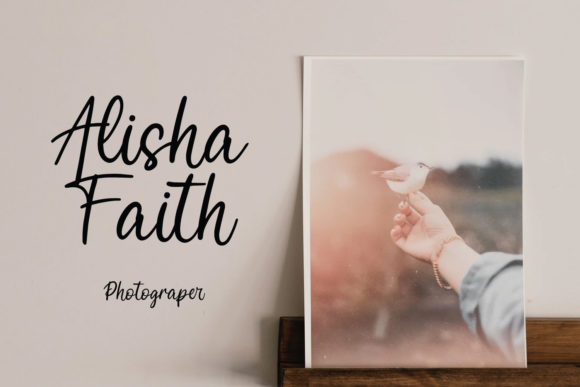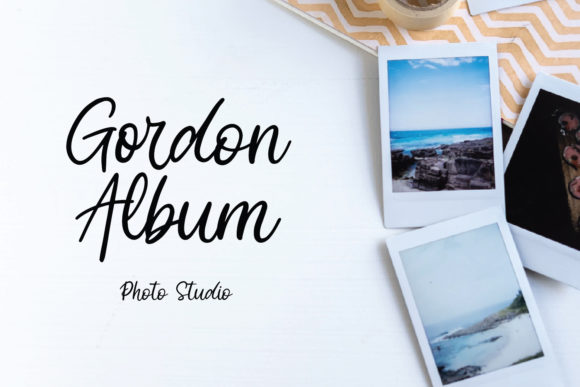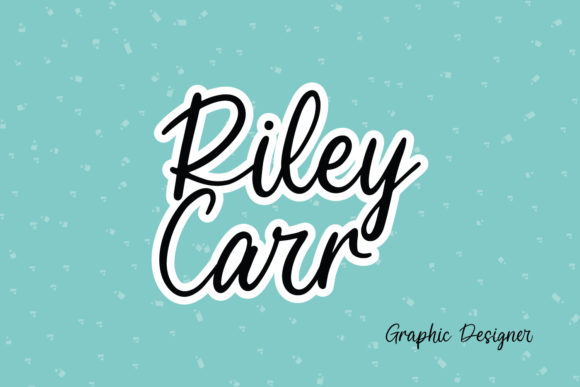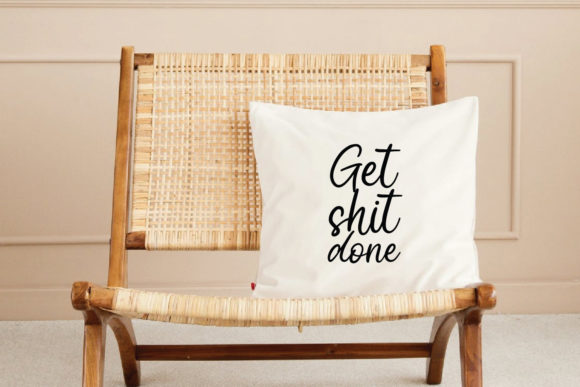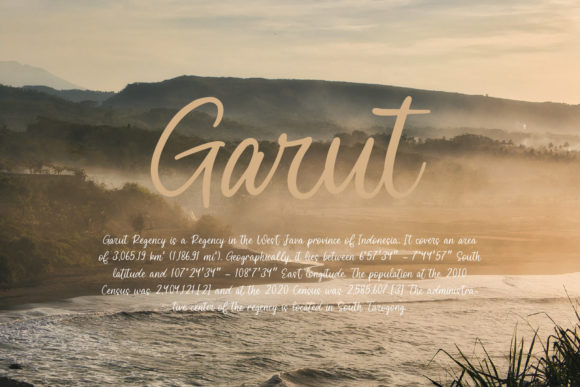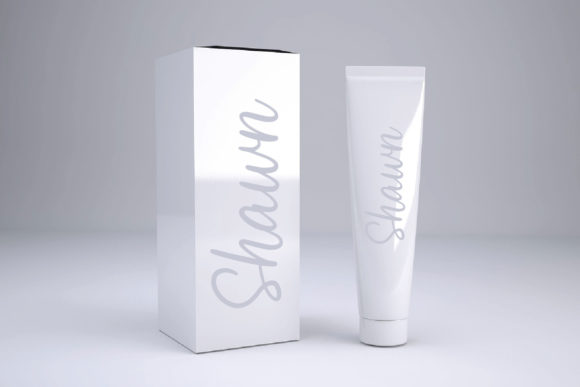
Introducing Balloon Hands Font: The Perfect Addition to Your Creative Projects
Are you a designer, crafter, or DIY enthusiast looking for a unique and playful font to add a personal touch to your projects? Look no further than Balloon Hands Font! This lovely script font features charming, whimsical characters that seem to dance along the baseline, making it the perfect addition to your most creative ideas.
The Characteristics of Balloon Hands Font
Balloon Hands Font is a script font that boasts a range of delightful features, including:
- Playful characters: Each letter in the Balloon Hands Font has a unique, hand-drawn feel that’s sure to bring a smile to your face. The characters seem to dance along the baseline, giving your text a lively, energetic feel.
- Charming connections: The font features beautiful connections between letters, creating a flowing, cursive effect that’s perfect for adding a touch of elegance to your projects.
- Variety of alternates: Balloon Hands Font comes with a range of alternate characters, allowing you to mix and match letters to create a truly unique look.
Why Use Balloon Hands Font?
- Add a personal touch: With Balloon Hands Font, you can add a personal touch to your projects that’s sure to make them stand out. Whether you’re creating invitations, greeting cards, or social media graphics, this font is the perfect way to add a bit of personality.
- Perfect for crafty projects: If you’re a crafter or DIY enthusiast, Balloon Hands Font is a great choice for your next project. Use it to create beautiful hand-lettered signs, decorate your journal pages, or add a touch of whimsy to your scrapbooking projects.
- Easily readable: Despite its playful feel, Balloon Hands Font is still easy to read, making it perfect for use in a variety of contexts, from body text to headings.
How to Use Balloon Hands Font
- Pair it with bold fonts: For a striking contrast, pair Balloon Hands Font with a bold, sans-serif font. This will create a beautiful visual hierarchy and add depth to your designs.
- Experiment with colors: Don’t be afraid to experiment with different colors and textures when using Balloon Hands Font. The font looks great in a range of colors, from bright and bold to soft and pastel.
- Add embellishments: To take your designs to the next level, try adding embellishments like glitter, stars, or other graphics. This will add an extra touch of whimsy and make your designs truly special.
In conclusion, Balloon Hands Font is a lovely script font that’s perfect for designers, crafters, and DIY enthusiasts. With its playful characters, charming connections, and variety of alternates, this font is sure to add a personal touch to your projects and make them stand out. So why not give it a try? Download Balloon Hands Font today and see the difference it can make in your designs!
- Script font with playful characters
- Charming connections between letters
- Variety of alternate characters
- Easily readable
- Perfect for crafty projects and designs